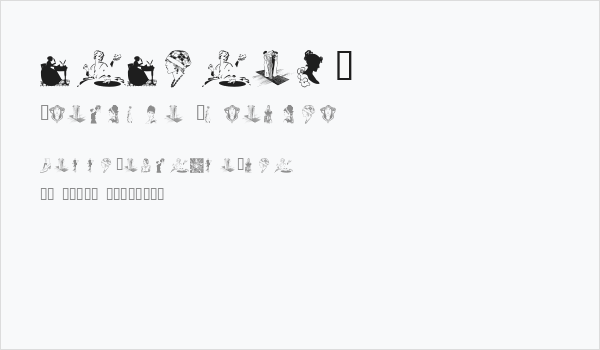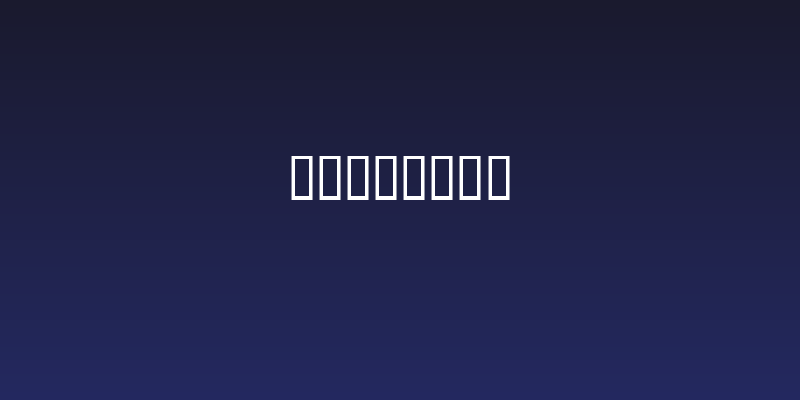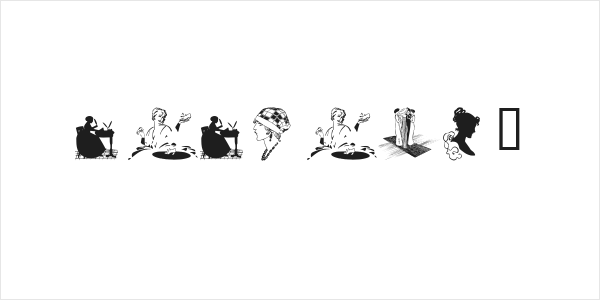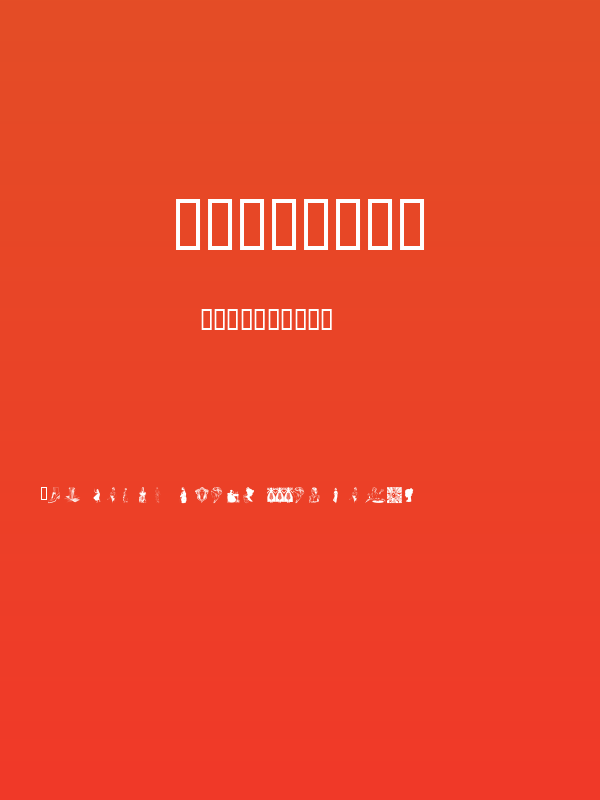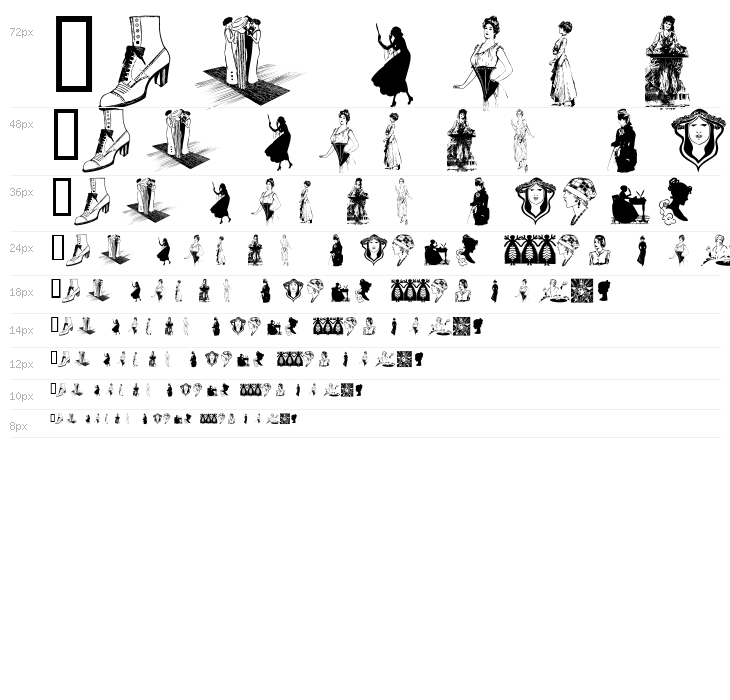
wmwomen1 Font
wmwomen1 Description
A decorative dingbat font featuring detailed black-and-white illustrations of women in various vintage and historical styles, along with related accessories and motifs. The glyphs are highly illustrative and ornamental, with a focus on feminine themes and retro aesthetics.
| Overall Style | Decorative, Vintage |
| Use Case | Decorative elements, Themed graphics, Scrapbooking |
| Proposed Projects | Scrapbooking, invitations, themed posters, vintage branding, decorative borders, and craft projects. |